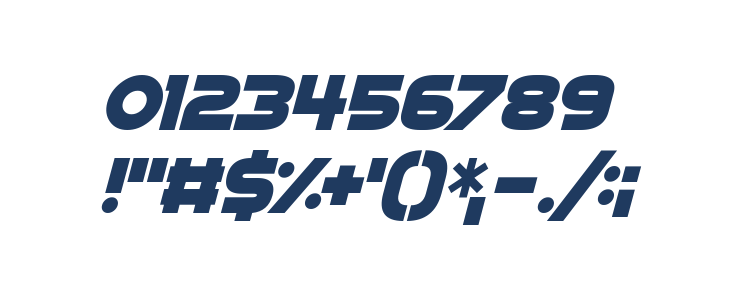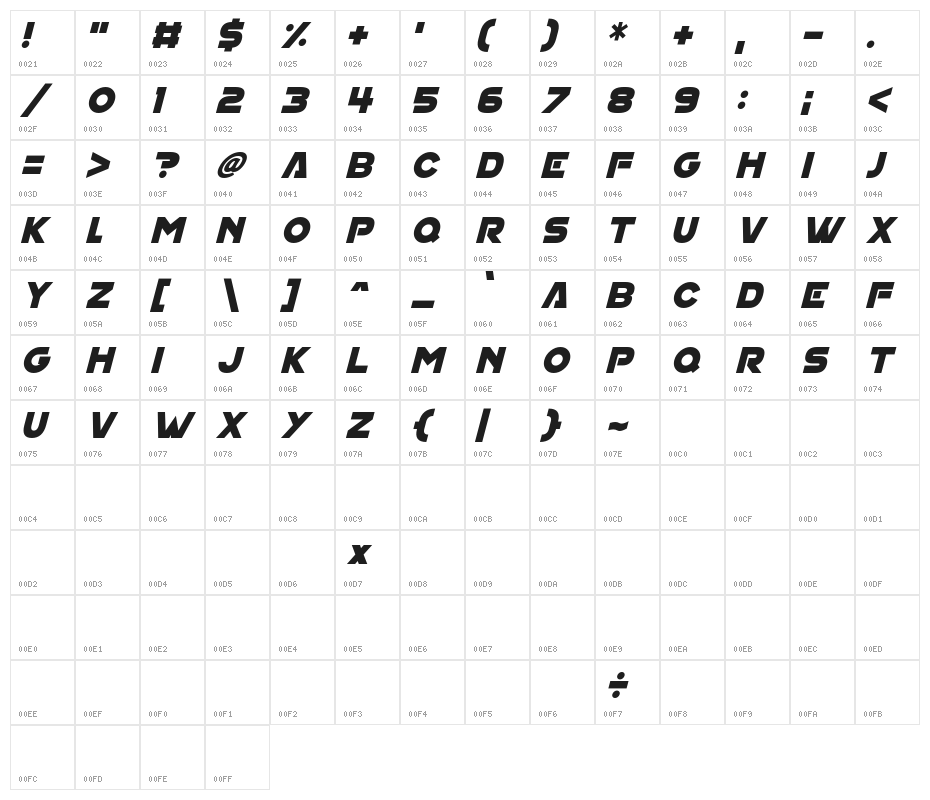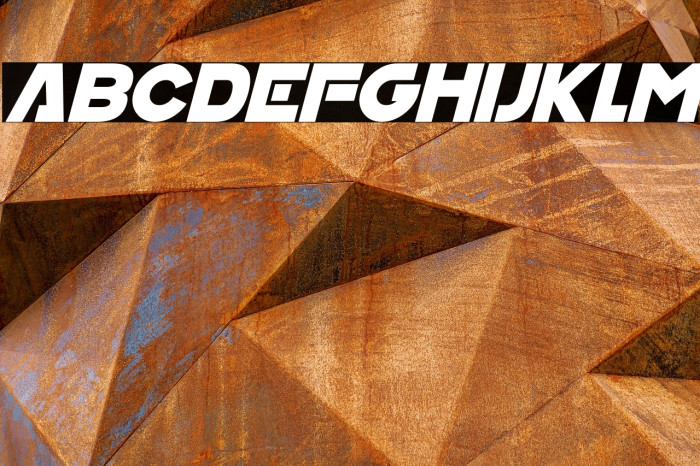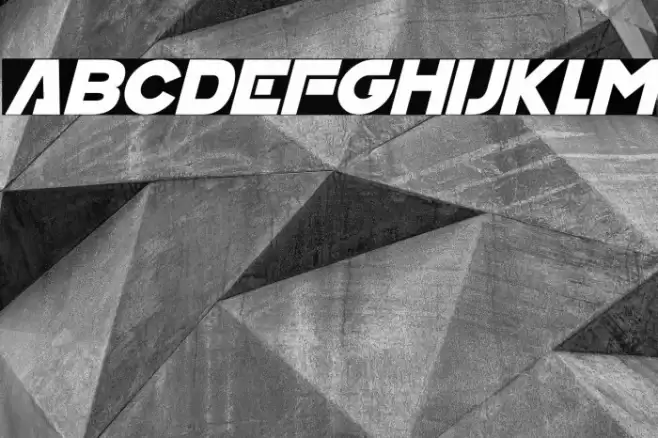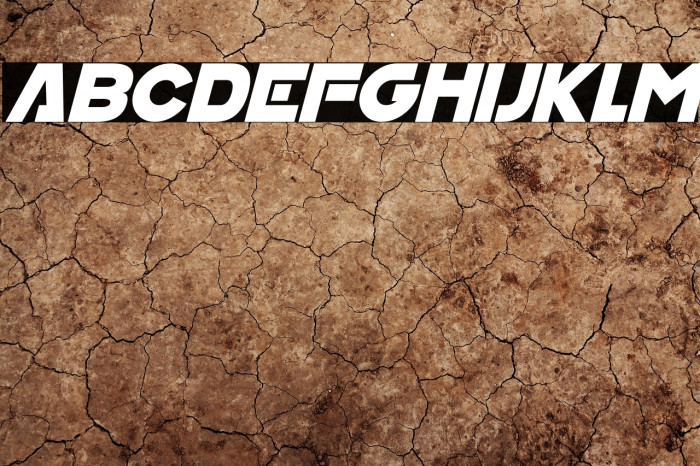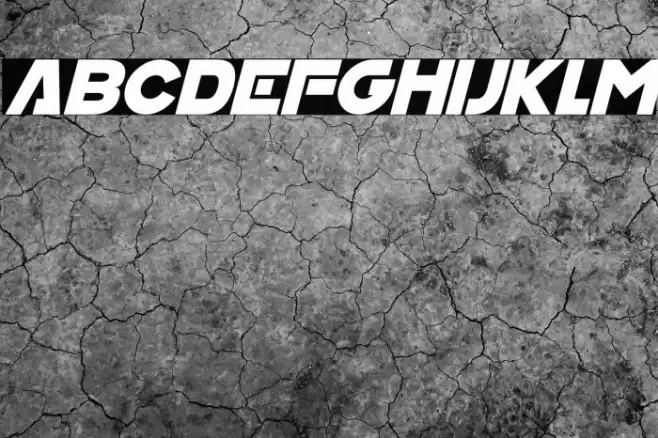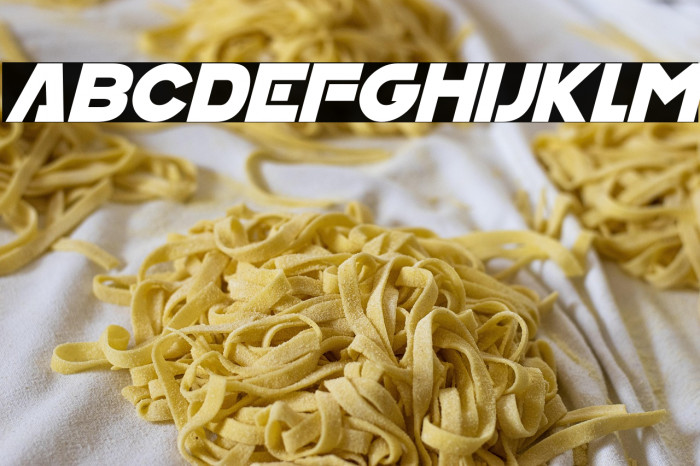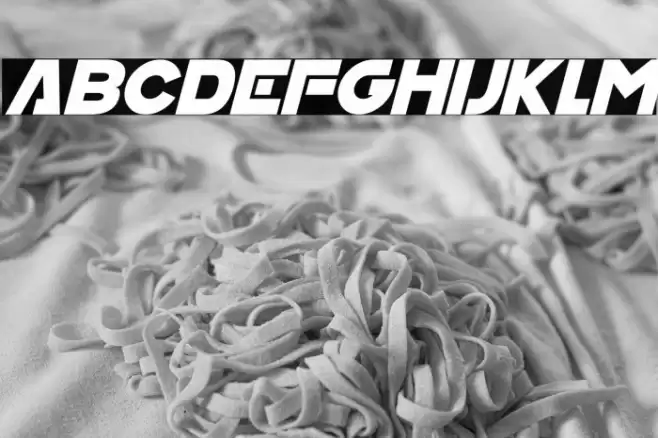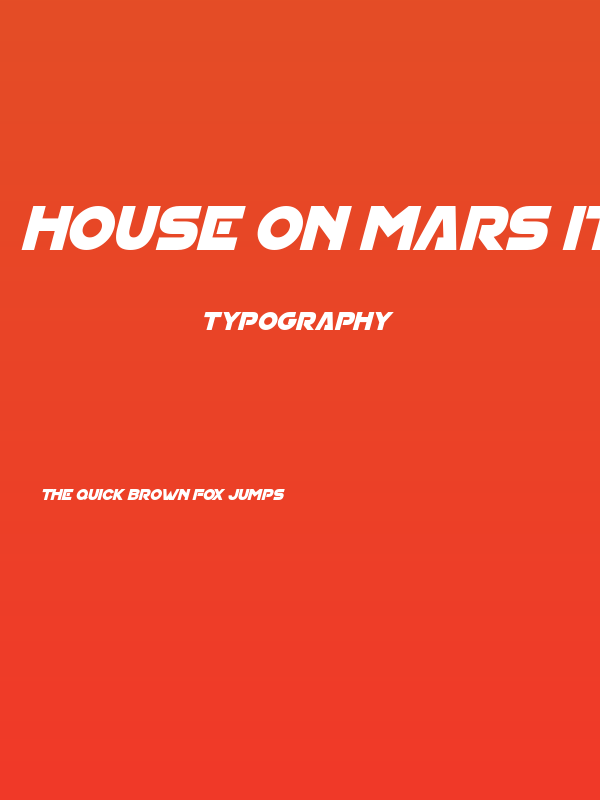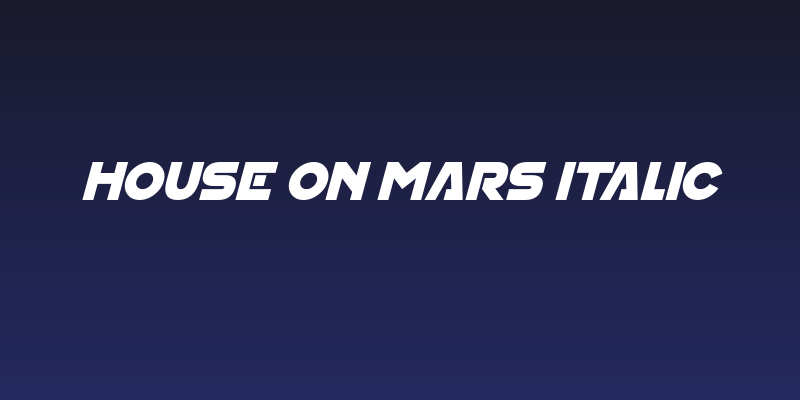
House On Mars Italic Font
House On Mars Italic Description
This font features a bold and dynamic style with a futuristic flair, characterized by its italicized, forward-leaning posture. The letters are crafted with sharp angles and clean lines, giving them a sleek and modern appearance. The uppercase and lowercase letters maintain a consistent design, ensuring readability while adding a unique touch to each character. The numerals and special characters follow the same design principles, making them cohesive with the overall font style. This font is ideal for projects that require a modern and edgy look, such as technology branding, sci-fi themed designs, or innovative product packaging.
| Proposed Projects | Ideal for technology branding, sci-fi designs, and innovative product packaging. |